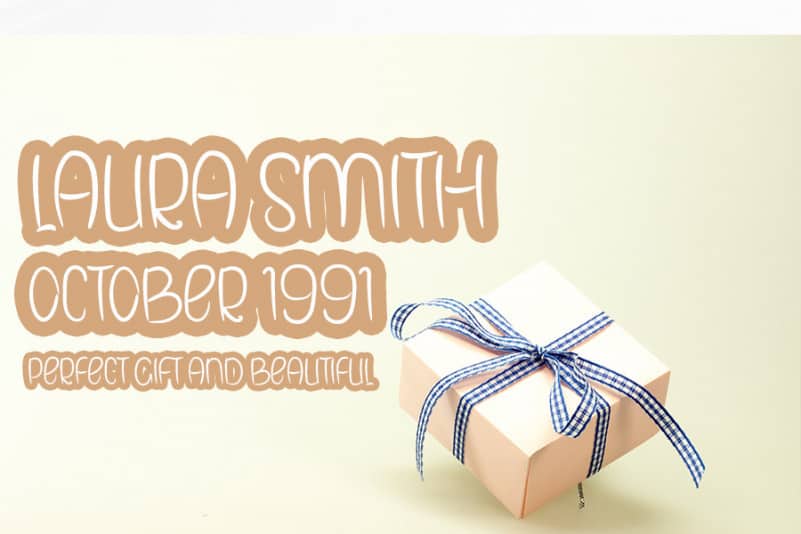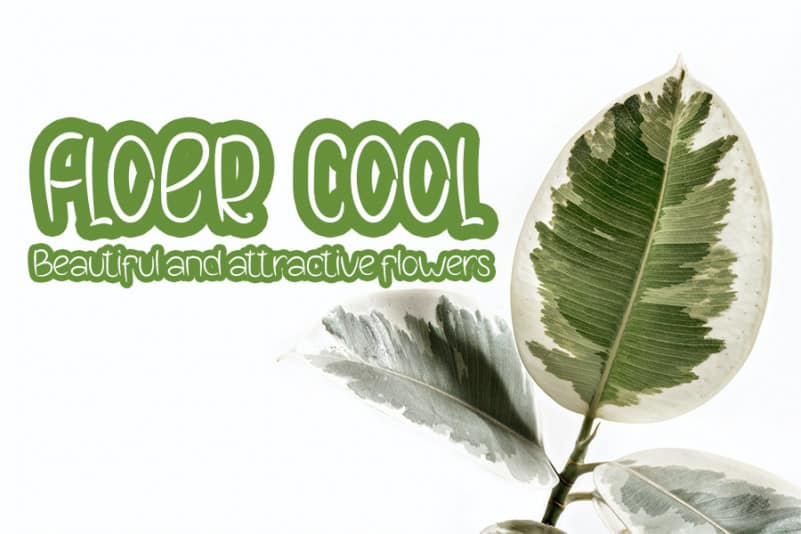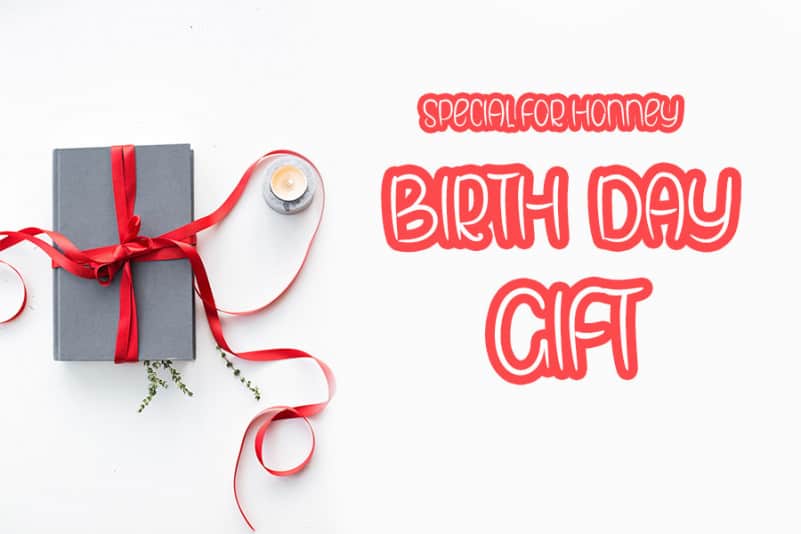
Book Line Script Font
Book Line Script Font is a handwritten font with a relaxed style. It will elevate a wide range of design projects to the highest level, be it branding, headings, wedding designs, invitations, signatures, logos, labels, and much more!